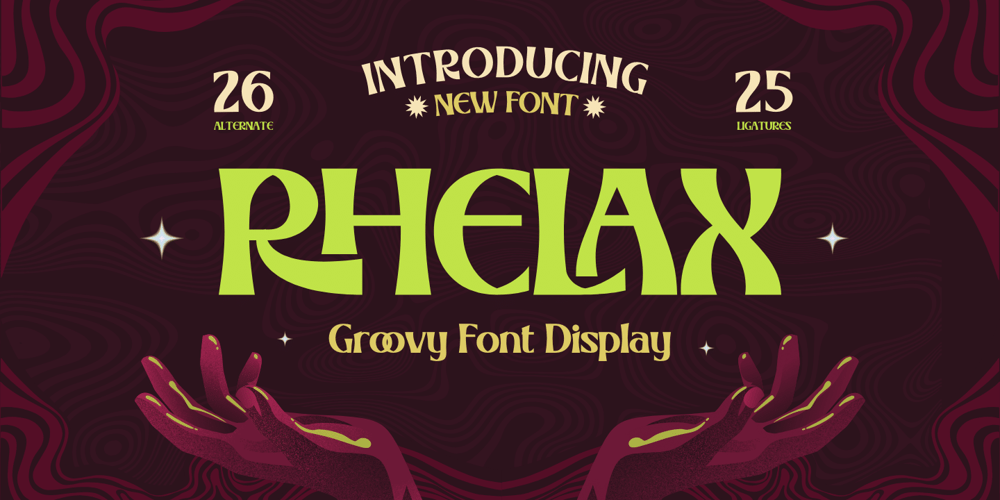
Rhelax
Rhelax font
Rhelax Font Family was designed by Rozikan and published by Twinletter. Rhelax contains 1 styles and family package options. Rhelax is a luxurious font with a modern look and feel. It has a subtle and elegant style that adds a touch of class to your designs. A wide selection of alternate ligatures and fonts means you can use these to create a custom style for your project that creates a beautiful and unique look. This font offers a unique touch to each letter, making it ideal for a wide variety of projects where you want to stand out from the crowd!What’s Included : Standard glyphs Iso Latin 1 Simple installations We highly recommend using a program that supports OpenType features and Glyphs panels like many Adobe apps and Corel Draw, so you can see and access all Glyph variations. PUA Encoded Characters – Fully accessible without additional design software. Fonts include Multilingual support